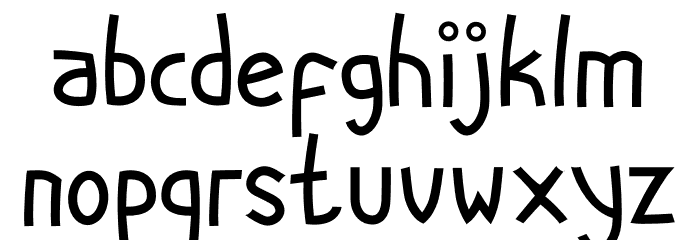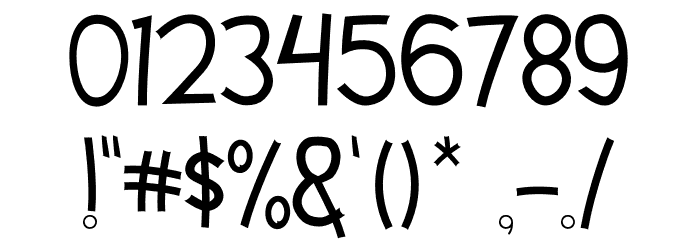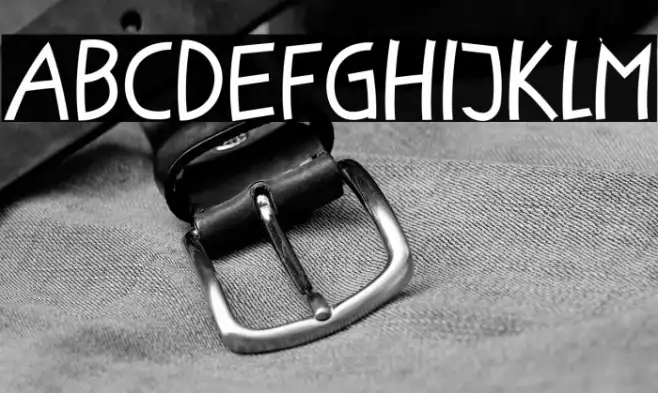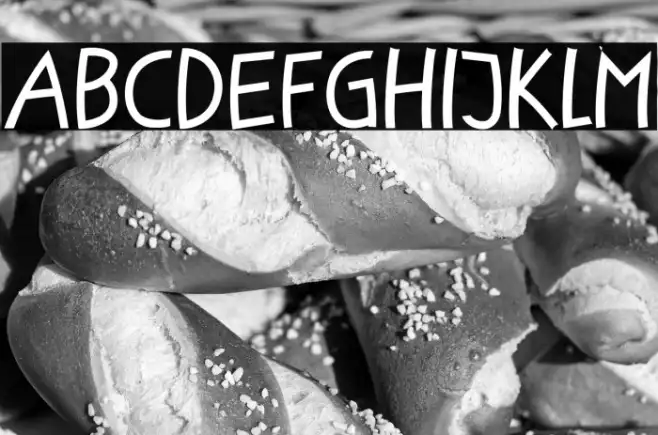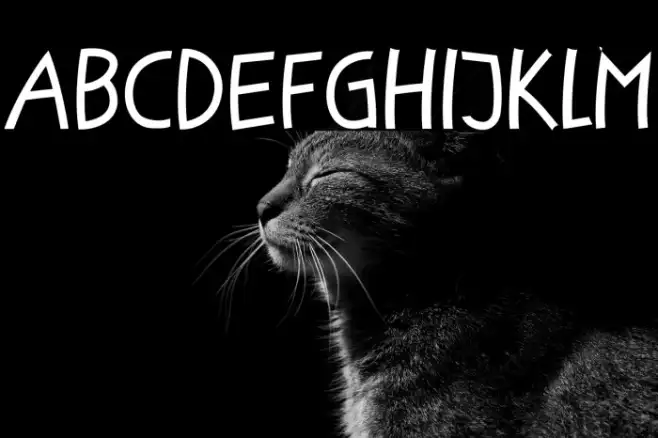
Little Fish Thin Font
This playful and whimsical font features a hand-drawn aesthetic with irregular, slightly wavy lines that give it a lively and informal appearance. The characters are bold and rounded, with a consistent thickness throughout, creating a friendly and approachable feel. The uppercase letters are tall and narrow, while the lowercase letters maintain a similar style with a slightly more relaxed form. The numerals are clear and easy to read, matching the overall style of the alphabet. Special characters are included, maintaining the same playful design. This font is ideal for projects that require a fun and casual look.
A playful, hand-drawn font with a whimsical and informal style.
- Font: Little Fish Thin
- Proposed Projects: Ideal for children's books, playful branding, casual invitations, and creative posters.